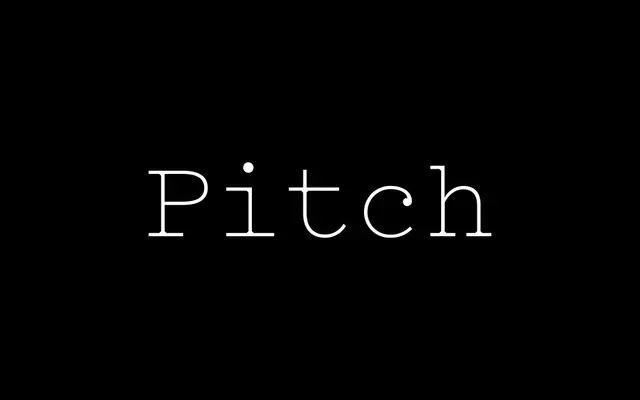
Pitch
Klim Type Foundry · Kris Sowersby · 2012
A slab serif monospace by Kris Sowersby that channels typewriter character without copying its quirks, suited to editorial and code settings.
A monospaced slab serif that reads as a considered nod to typewriter typography rather than a literal revival. Five weights from Light to Bold each carry a true italic, drawn so the slab terminals stay calm at body sizes. Reach for it when an editorial or technical brand wants the rhythm and texture of fixed-width letters without the flat sterility of a standard coding mono.
Klim classifies it as Moderns: Mechanistic/Slab Serif Monospace; described as a love letter to the typewriter, a synthesis of digital and analogue that evokes typewritten text rather than emulating it.